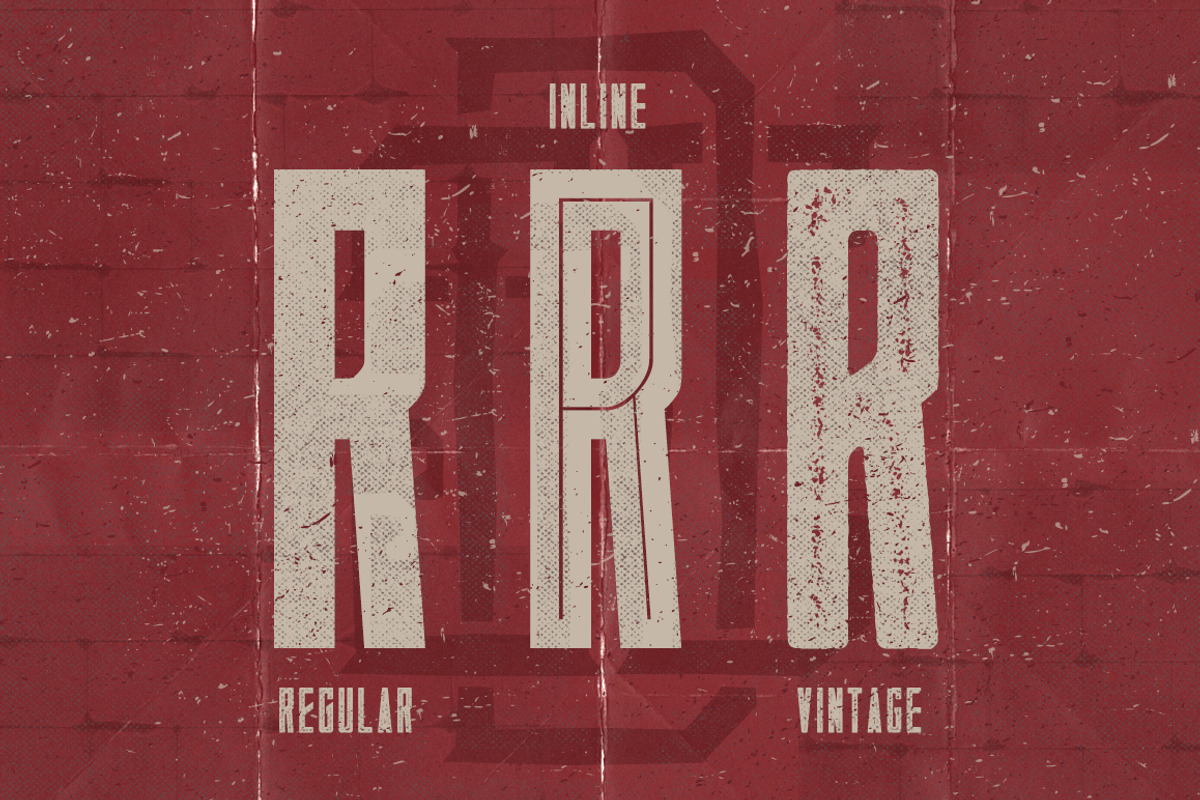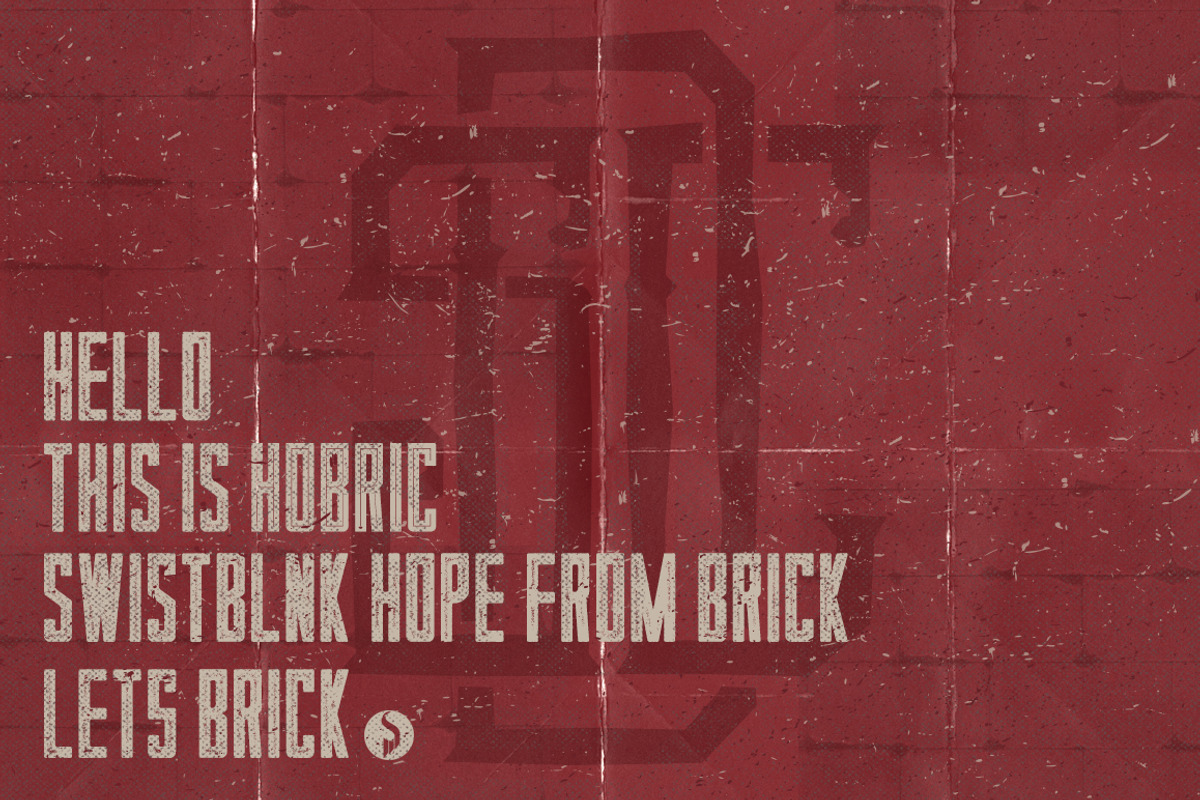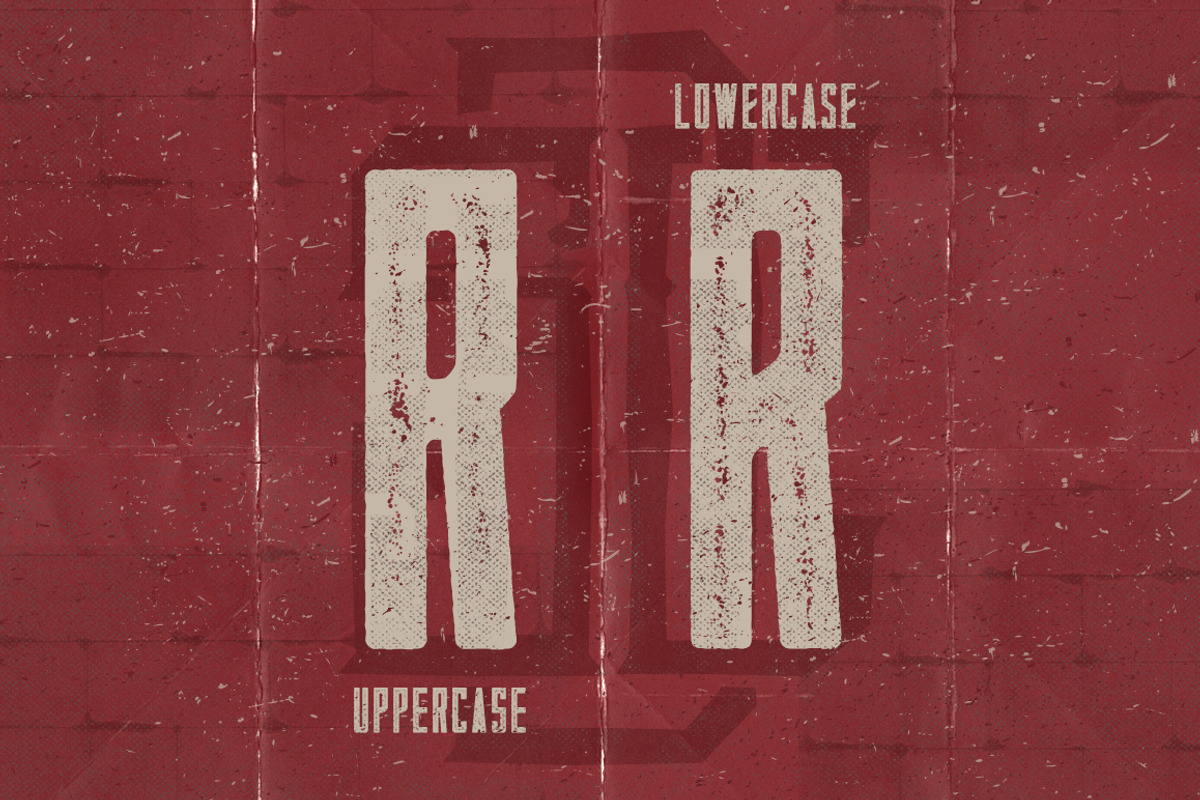
Hobric Family Typeface
Hobric Family Typeface by Swistblnk Std. is a font selected for branding, posters, packaging, typography.
- Hobric Family includes 3 fonts : 1.
- Hobric Regular Regular
- Hobric Inline Inline
- Hobric Vintage Vintage
Hobric Family Typeface by Swistblnk Std. fits naturally into Branding, posters, packaging, typography.